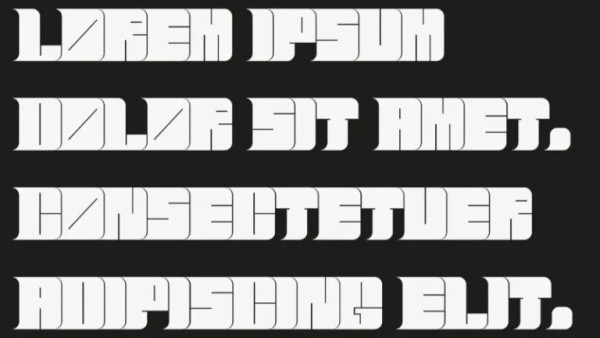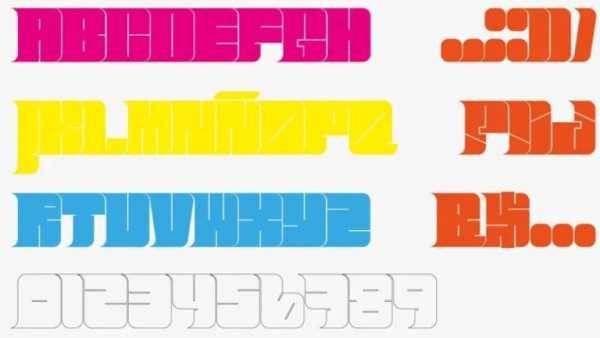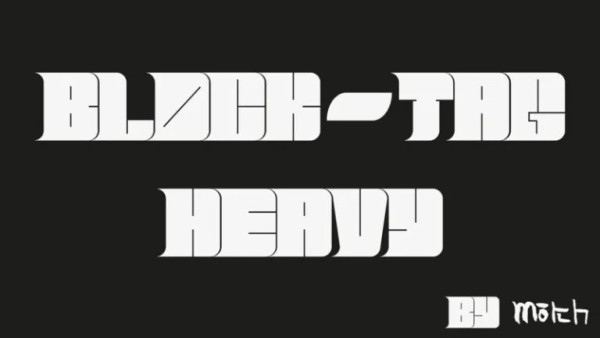
BlockTag Heavy Font
BlockTag Heavy Font, is a bold display typeface featuring a modern style, perfect for creating sporty modern-inspired designs. This font is the perfect choice for designers looking to add a bold and unique touch to their projects. Created with attention to detail, BlockTag-Heavy is a versatile font that can be used for a variety of purposes, such as branding, packaging, advertising, and more.